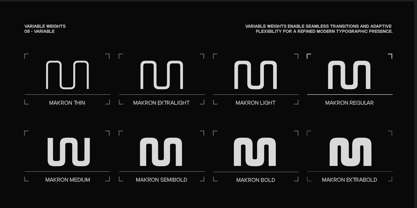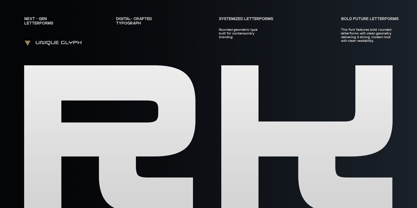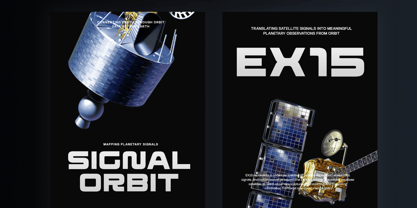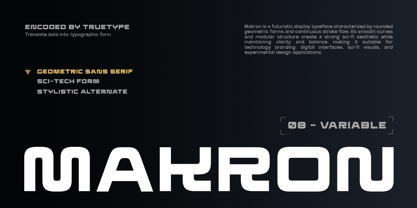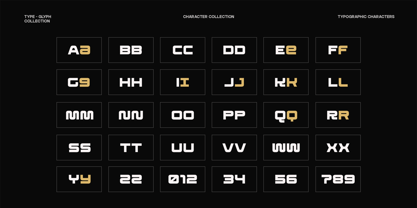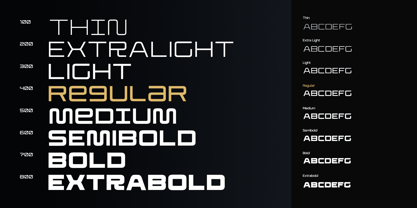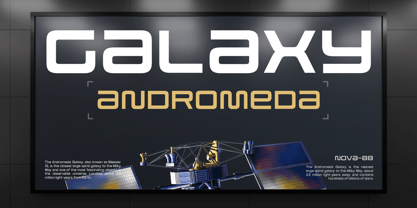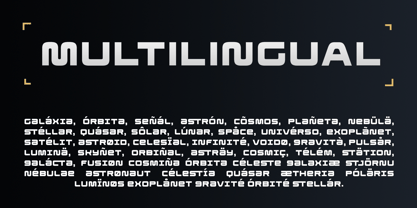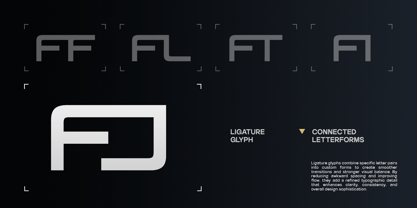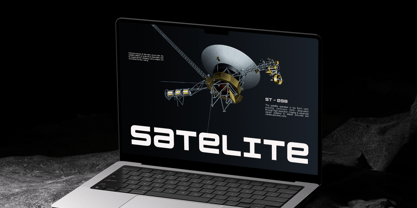
TRT Makron
by True Type Lab
The TRT Makron Font Family was designed by Yusilo Oktaprima Ardani and published by True Type Lab. TRT Makron contains 8 styles and family package options. More about this family
TRT Makron is a futuristic rounded geometric sans serif display typeface built for sci‑tech branding, digital interfaces, and modern editorial headlines. Its smooth modular forms and continuous strokes create a clean, bold, and contemporary visual presence. Optimized for display use, TRT Makron performs strongly in headlines, posters, visual hierarchies, and large-scale compositions. The wide proportions, stable geometry, and consistent rhythm create confident visual anchors while maintaining excellent legibility in both dark and light environments.
Designers: Yusilo Oktaprima Ardani
Foundry: True Type Lab
Founded by Yusilo Oktaprima Ardani, True Type Lab is a creative studio dedicated to exploring typography through a balanced approach of artistry and functionality. What began as a deep fascination with letterforms and typographic details has evolved into a studio that crafts typefaces with strong personality, distinctive character, and versatile usability.At True Type Lab, every letter is treated as a work of art with a vital role in delivering visual messages. We combine timeless design principles with modern techniques, creating fonts that are not only aesthetically pleasing but also optimized for diverse applications—both in print and digital environments. Our design range includes elegant serifs, modern sans-serifs, and experimental display fonts, each developed through thorough research and a meticulous creative process.With a focus on readability, flexibility, and visual identity, True Type Lab is committed to creating typefaces that empower designers, brands, and creators to craft impactful visual communication. From global brand identities to independent editorial projects, our fonts are designed to help stories and messages come alive on every page.